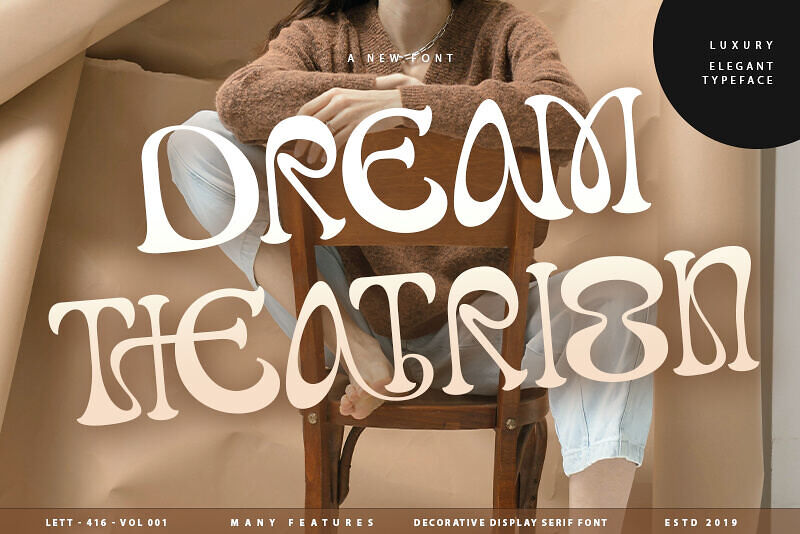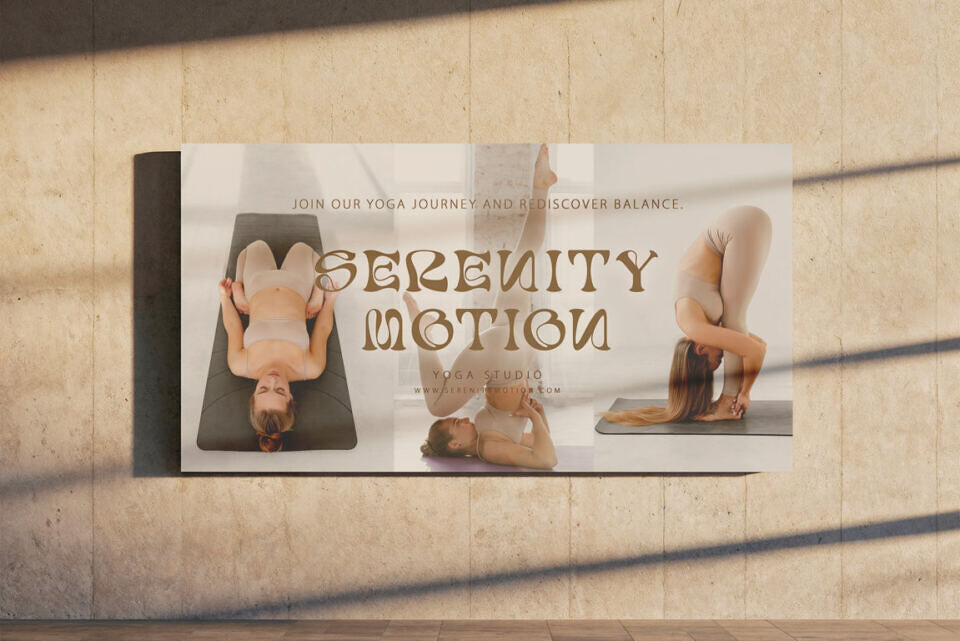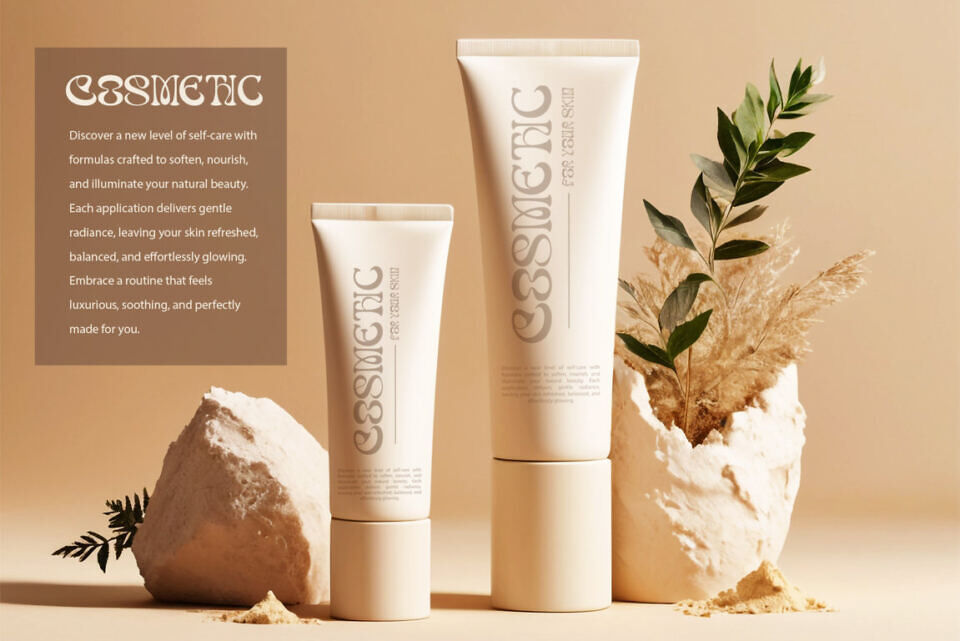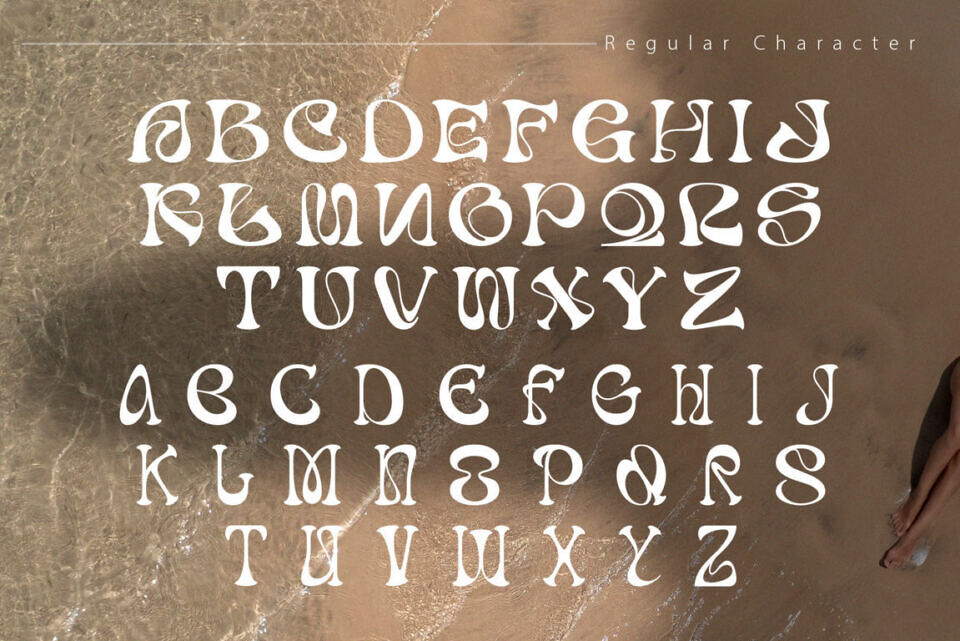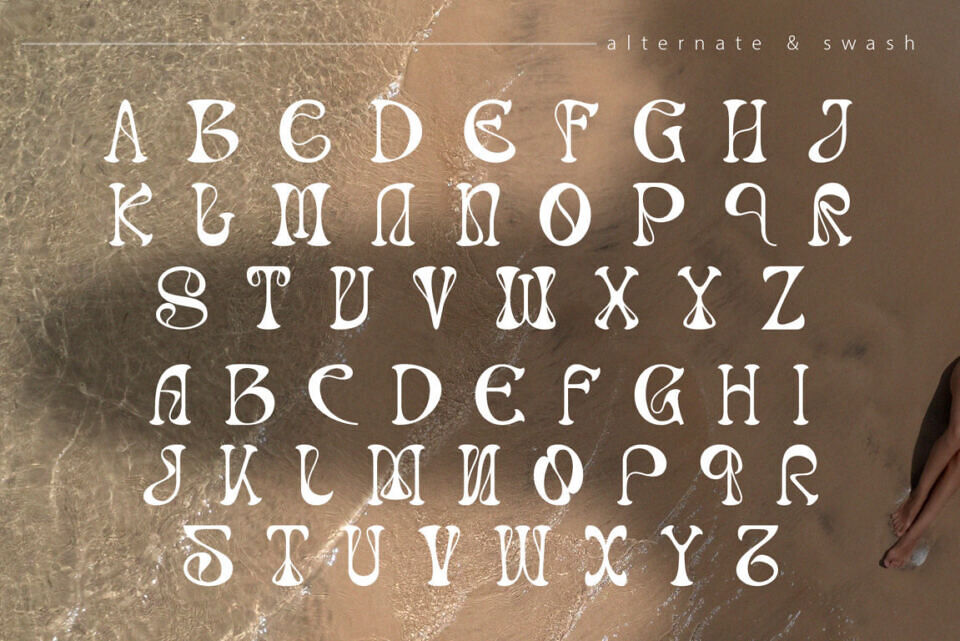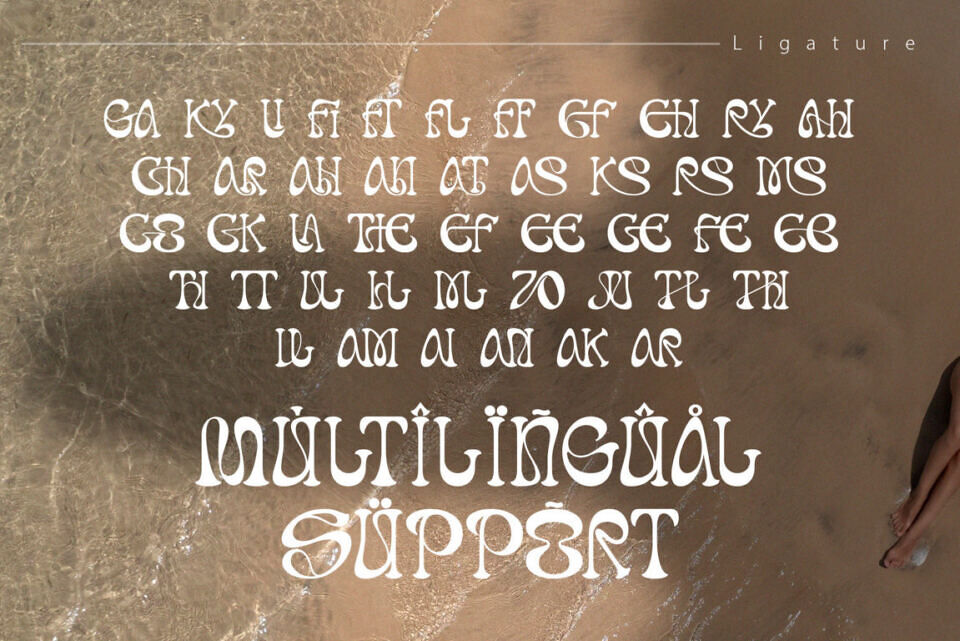
Dream Theatrion is a luxurious, highly decorative display serif that channels a sophisticated, groovy aesthetic, blending retro 60s/70s fluidity with high-end, contemporary elegance. This typeface is characterised by exaggerated, ‘melted’ curves, sweeping strokes, and large apertures, creating a captivating sense of soft motion and opulence.
The decorative flourishes and high contrast between thin and thick parts ensure it stands out magnificently at large sizes. Each curve and contour is crafted to evoke a sense of drama, poise, and refinement, making it a perfect choice for high-end branding, editorial layouts, and timeless design statements.